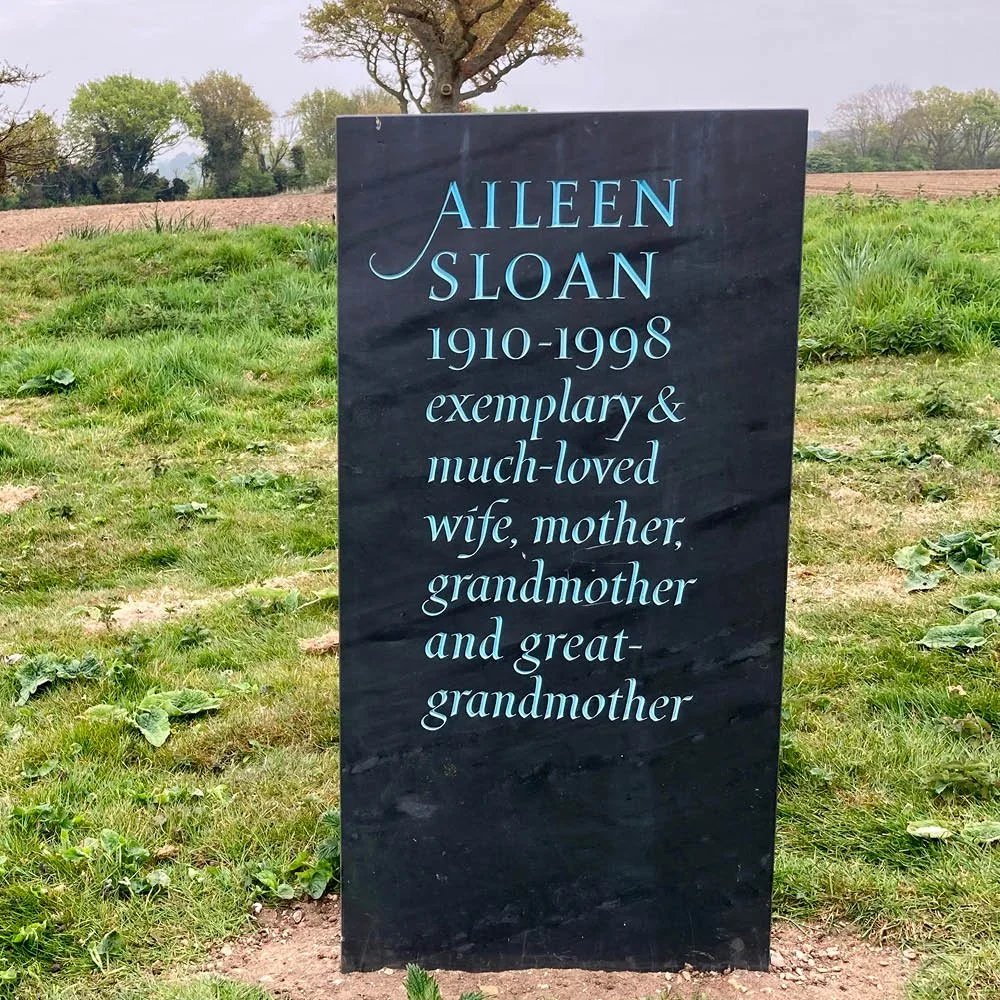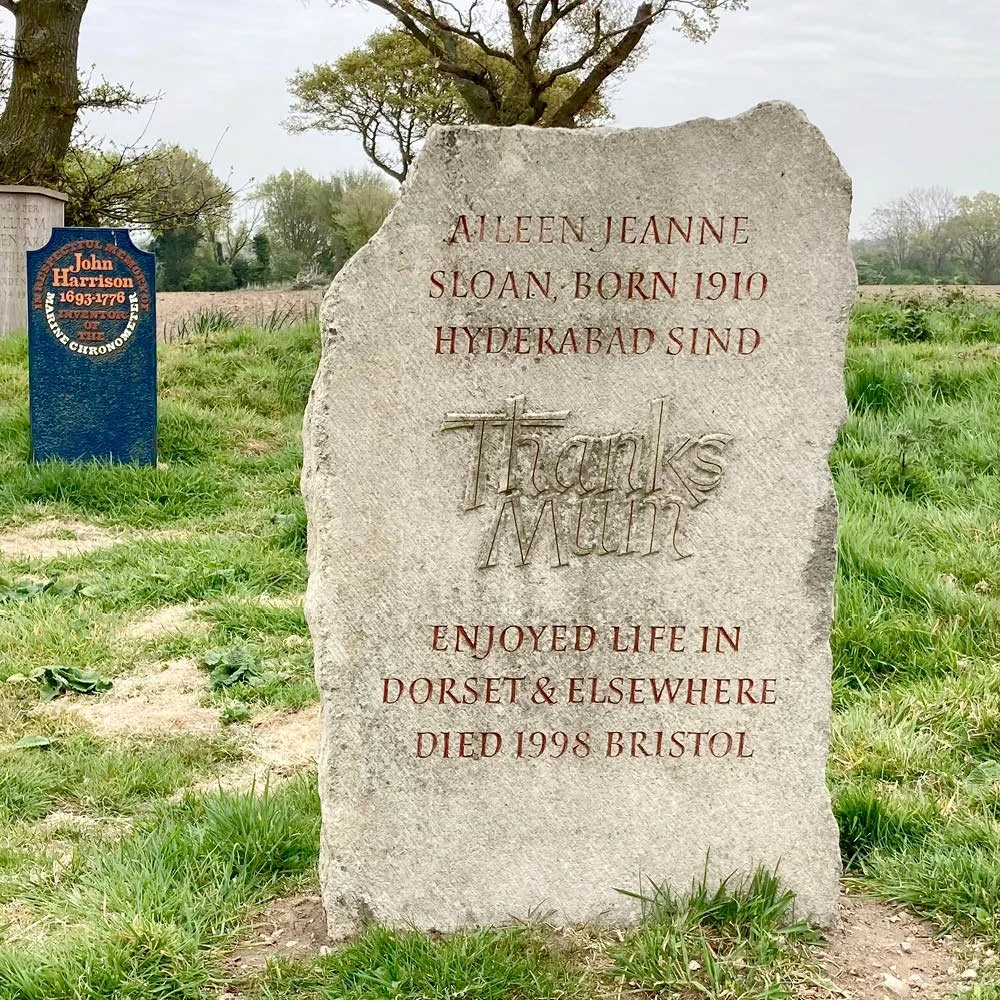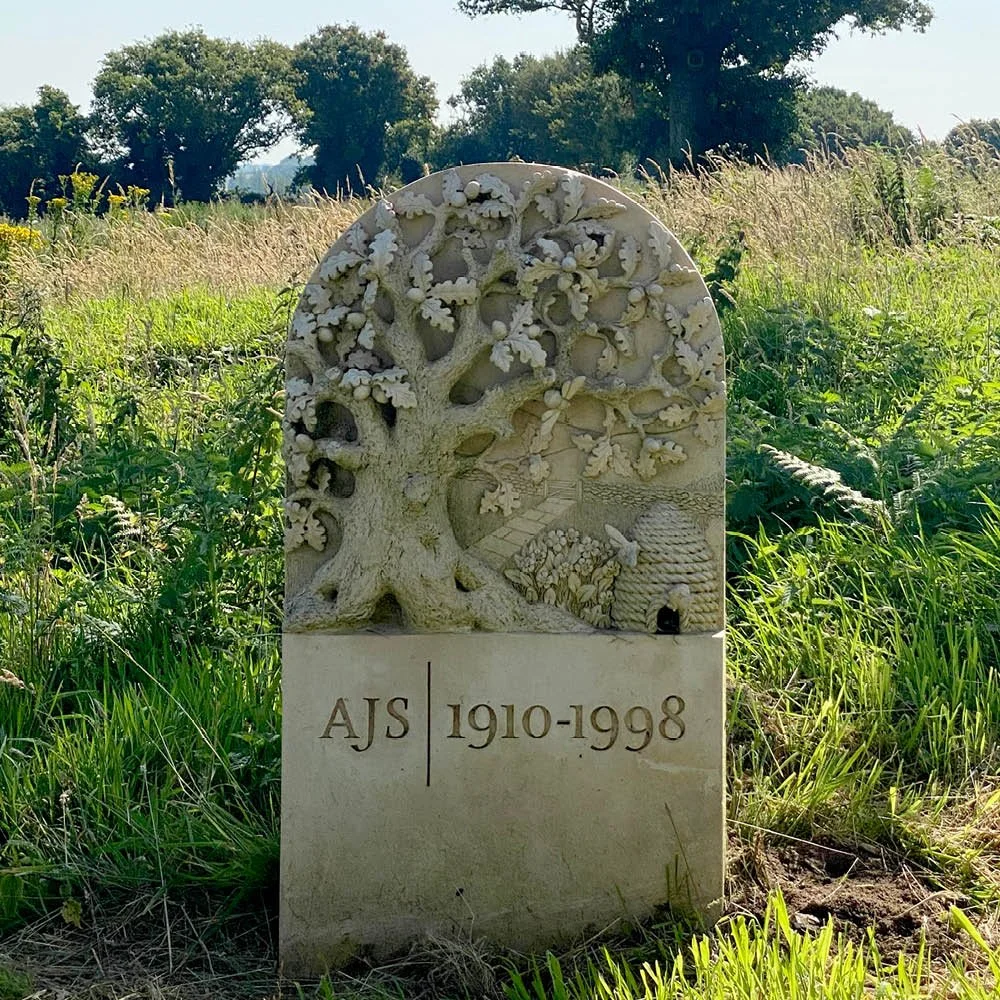
Three Aspects of Aileen Sloan by Nicholas Sloan
Cornish slate, Purbeck stone, terracotta
‘I wanted to show how variously someone can be represented, depending on the nature of the design, the material used and the choice of wording. The three stones represent different aspects of my mother and our family’s relationship to her. One is a formal slate; one a friendly design in rough Purbeck; and the third is an almost wholly pictorial version, that reflects her love of gardening and beekeeping.’